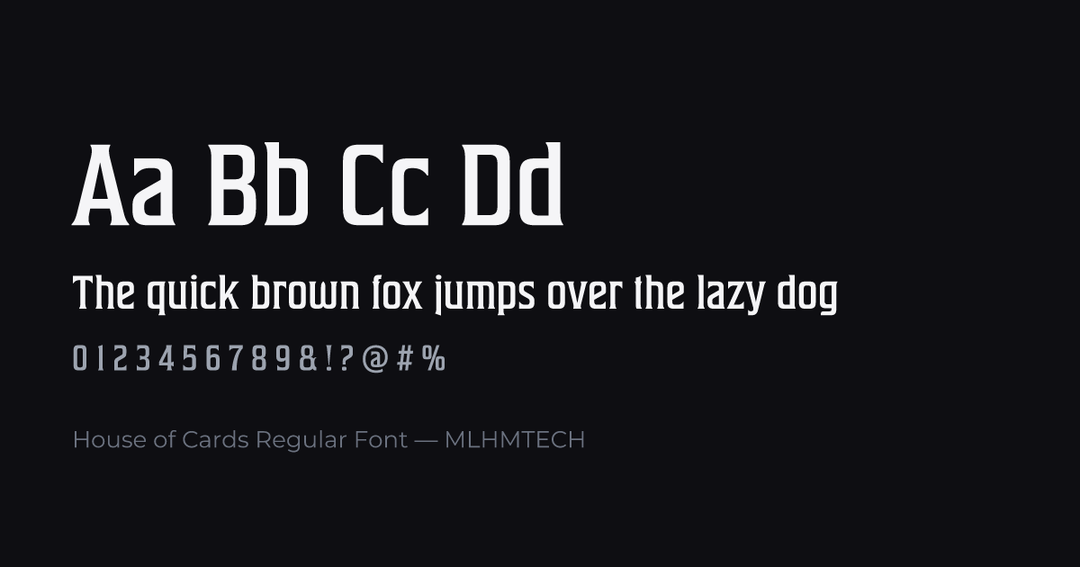
House of Cards Regular Font
House of Cards Regular is an elegant serif font that adds sophistication to titles, logos, and editorial designs. Perfect for video editing and creative projects.
House of Cards Regular is a refined serif typeface with classic proportions and a modern touch. Its clean lines and balanced letterforms make it versatile for various design applications, from video titles to print layouts.
Whether you're working on a corporate video, a wedding invitation, or a brand identity, House of Cards Regular will elevate your design with its understated elegance.